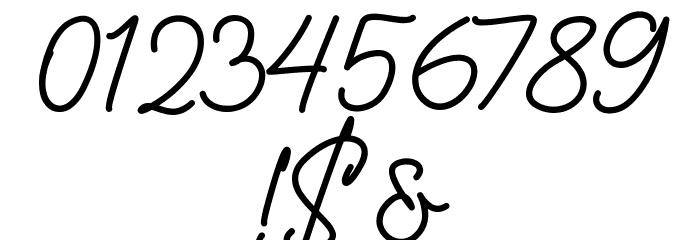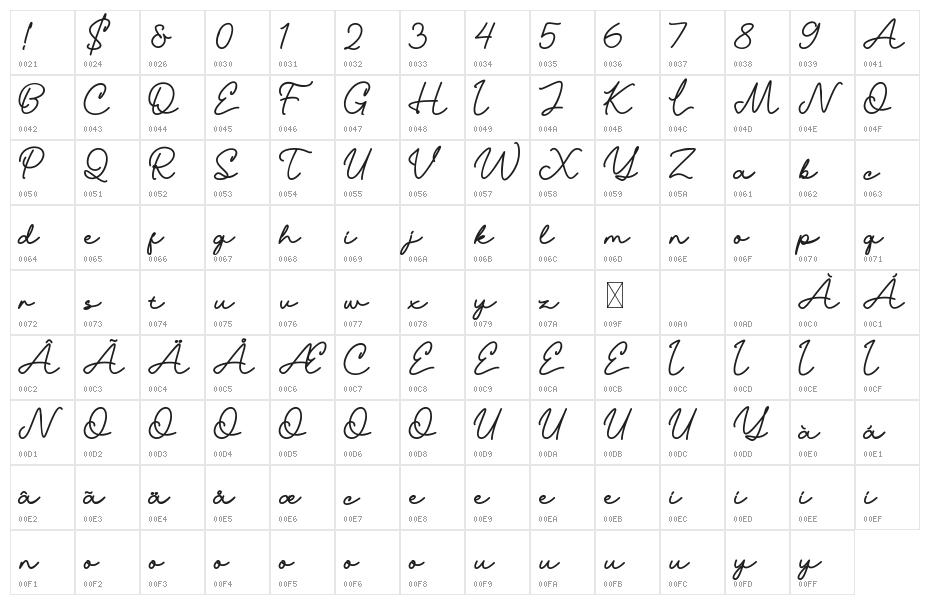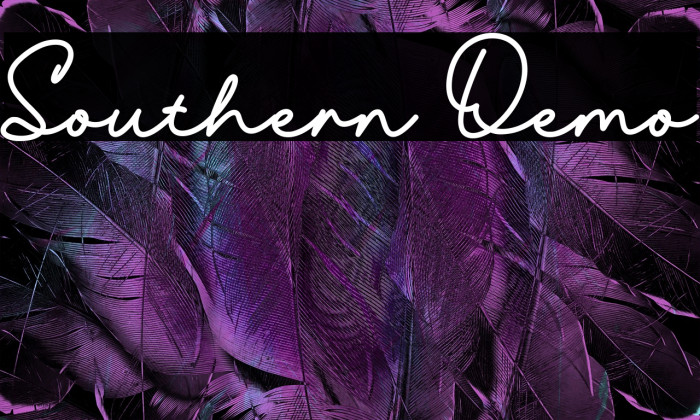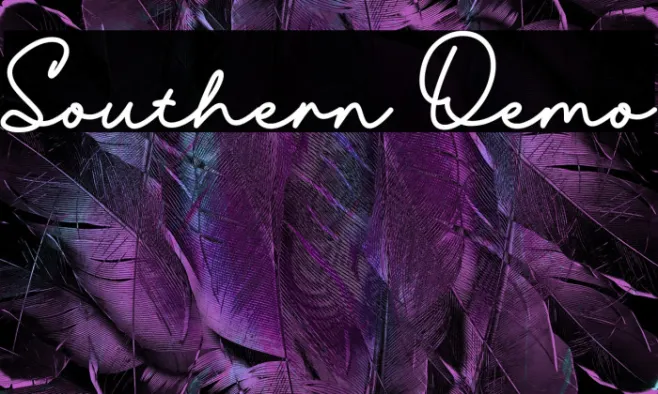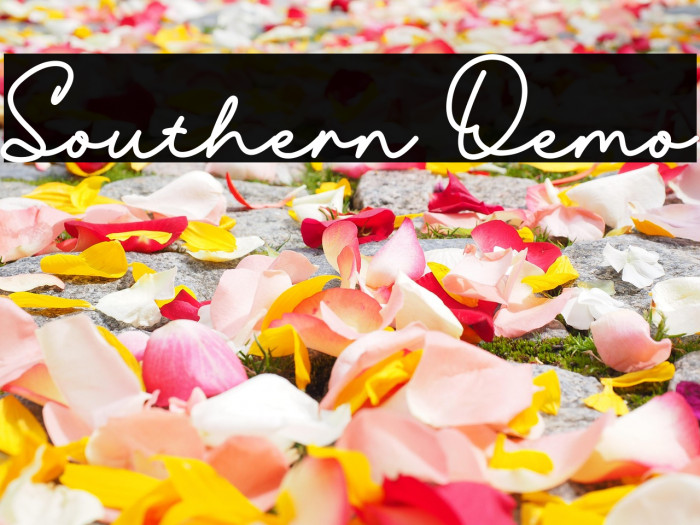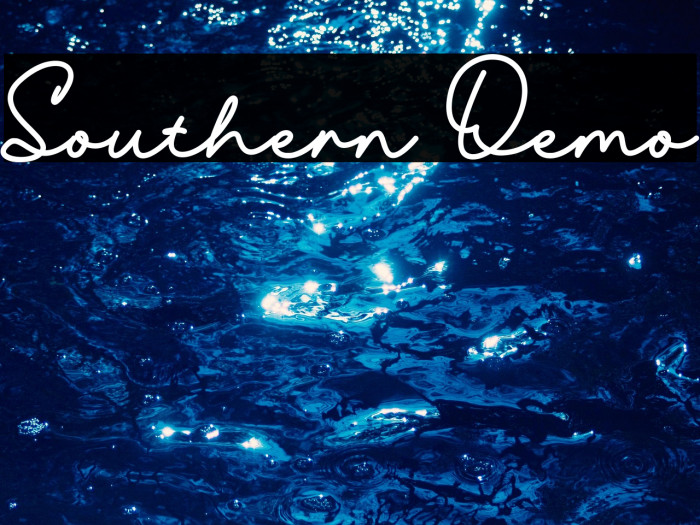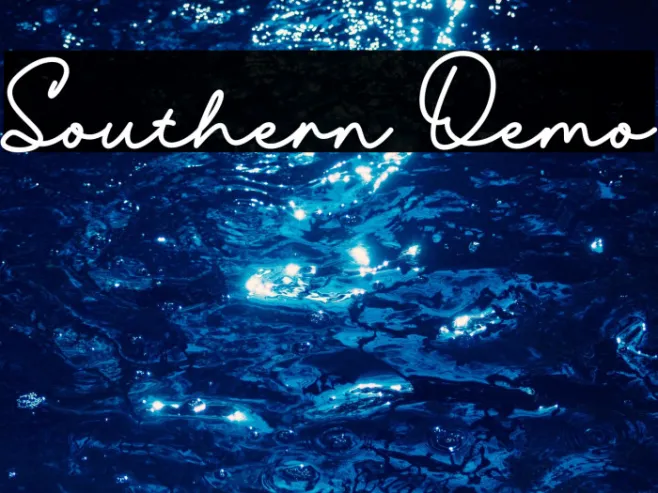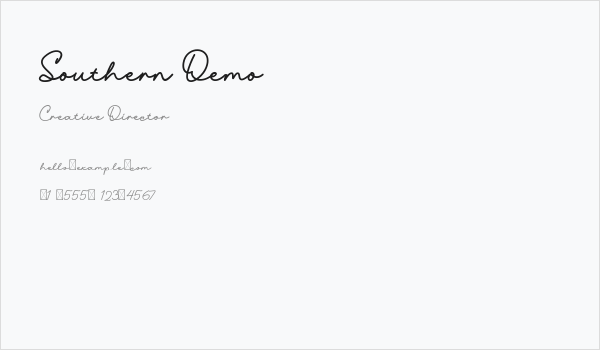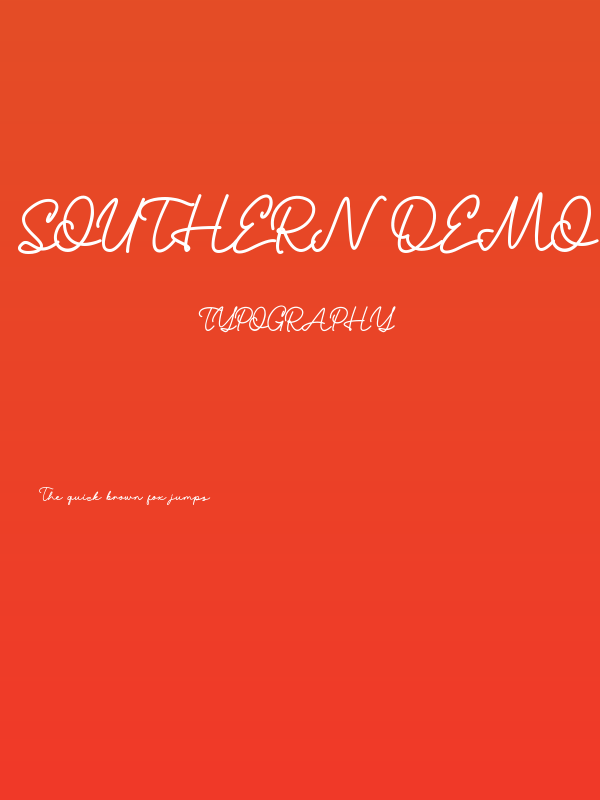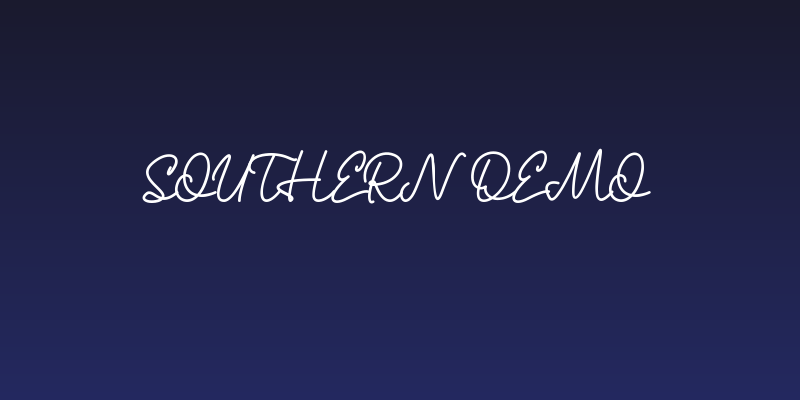
Southern Demo Font
Southern Demo Description
This font features a flowing, cursive style that mimics elegant handwriting. Each letter is connected, creating a seamless and fluid appearance. The uppercase letters are slightly more elaborate, with graceful loops and curves, while the lowercase letters maintain a consistent and smooth flow. The numerals are clear and easy to read, maintaining the same cursive style. Special characters are integrated seamlessly, adding to the font's versatility. This font exudes a sense of sophistication and charm, making it ideal for projects that require a personal touch.